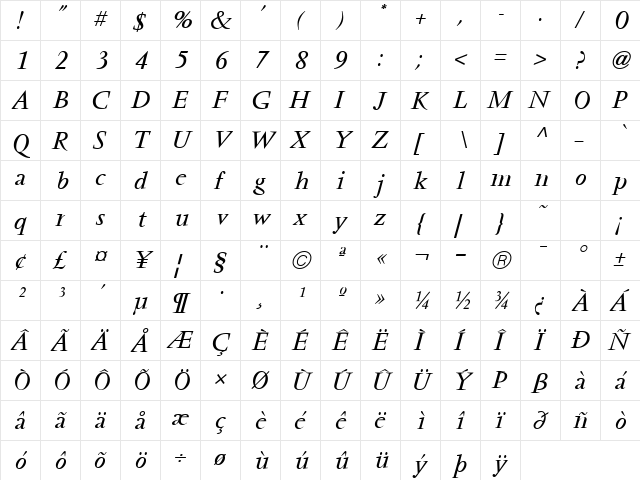
Vendome ICG Italic
Design Context for Vendome ICG Typeface
Vendome ICG takes a measured approach to typography — its balanced proportions and neutral character make it a reliable workhorse for both digital and print work. The dynamic lean of this cut emphasises speed and emphasis in any layout.
Pro Tip: Try Vendome ICG for annotation and caption copy alongside an upright companion — the contrast in angle creates a dynamic but ordered typographic system.